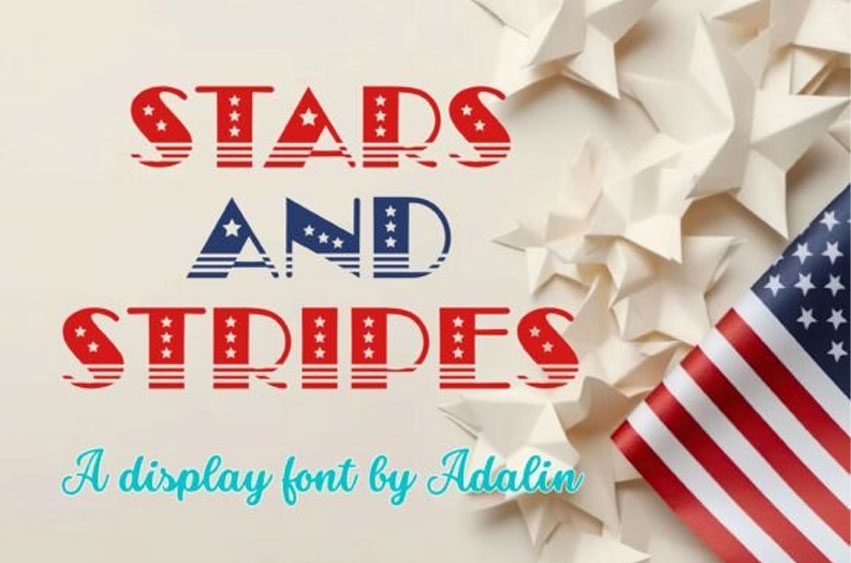
Stars and Stripes Font
Stars and Stripes Font is a 4th of July decorative theme font.
It is perfect for your 4th of July project, make your design with this decorative font to celebrate the day!